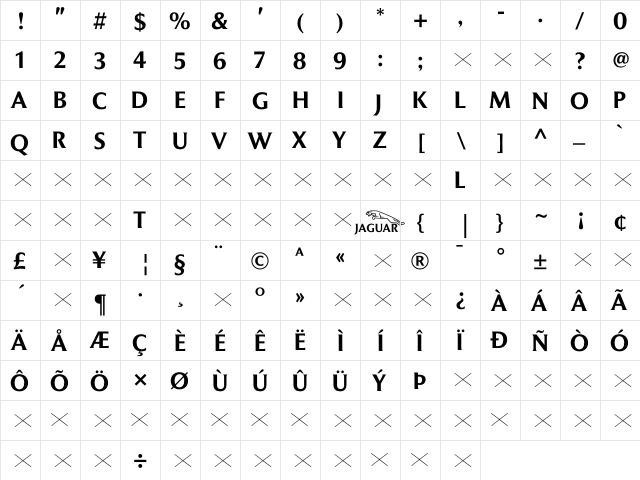
JaguarTitlingJC Medium
Design Context for JaguarTitlingJC Typeface
JaguarTitlingJC offers clean, dependable letterforms without strong stylistic allegiance, making it a practical choice for designers who need flexibility.